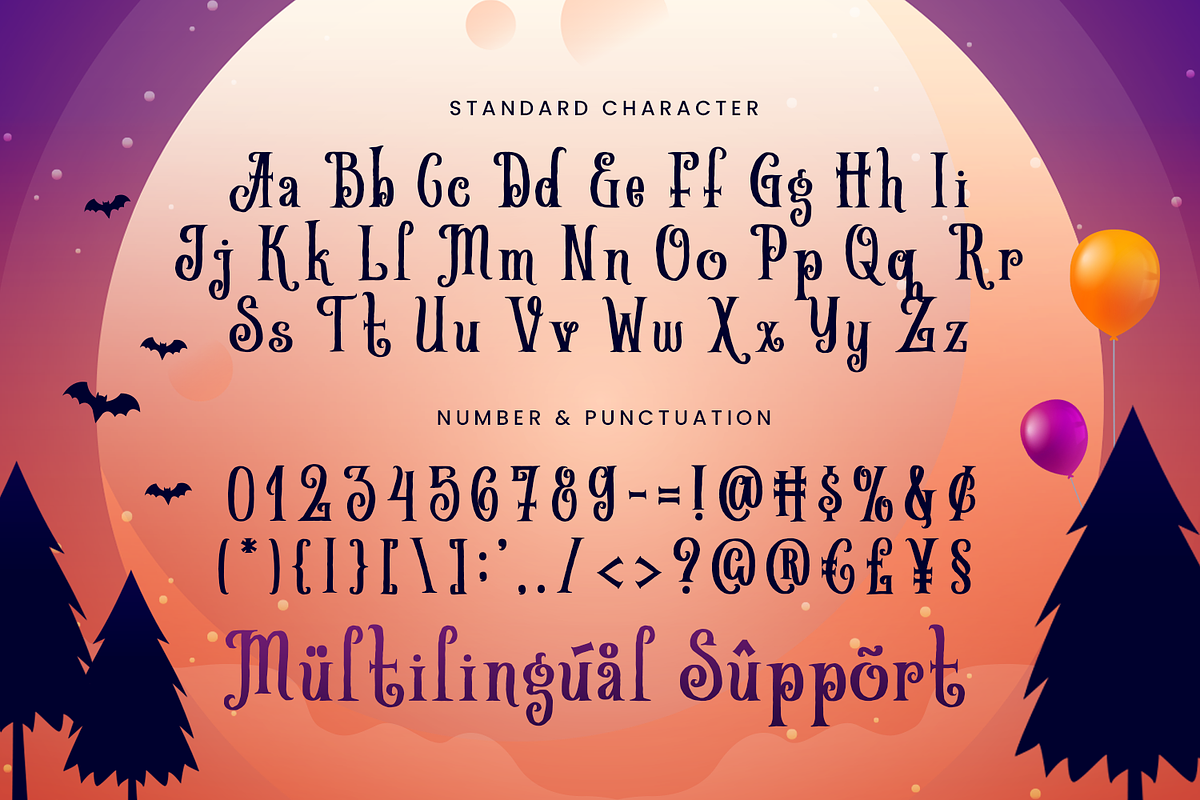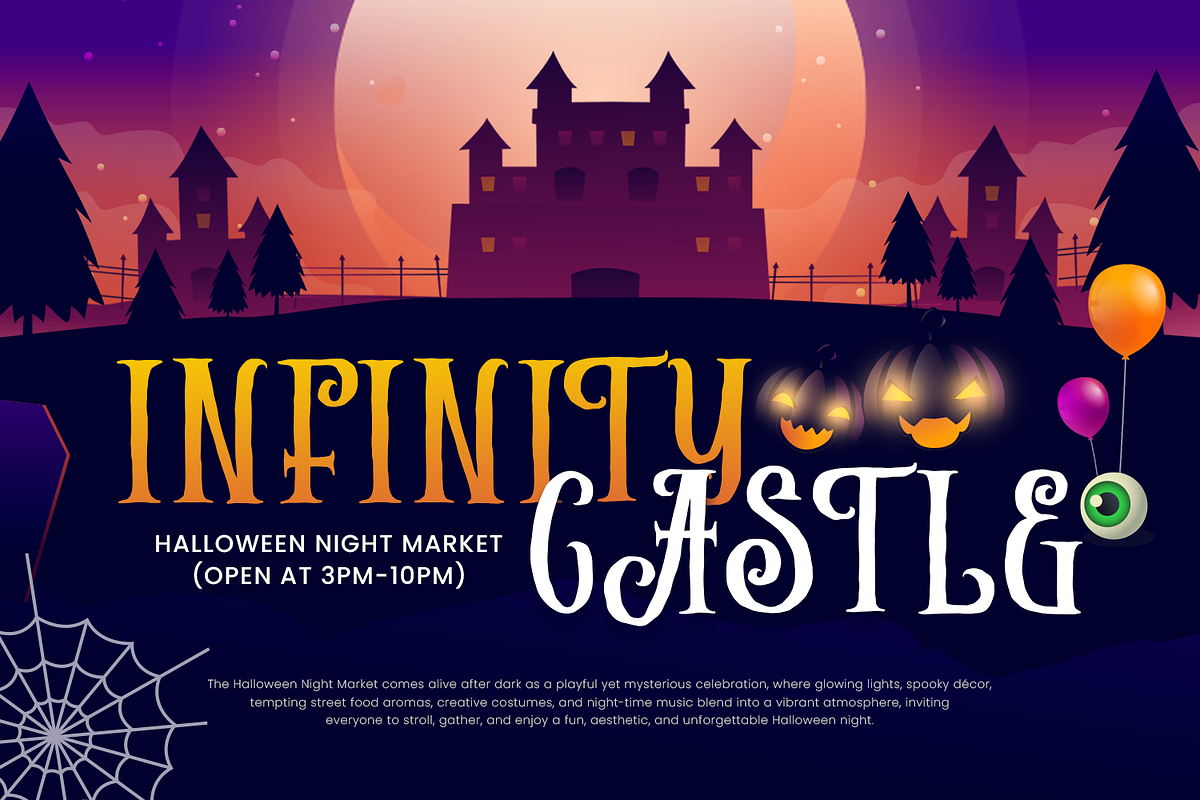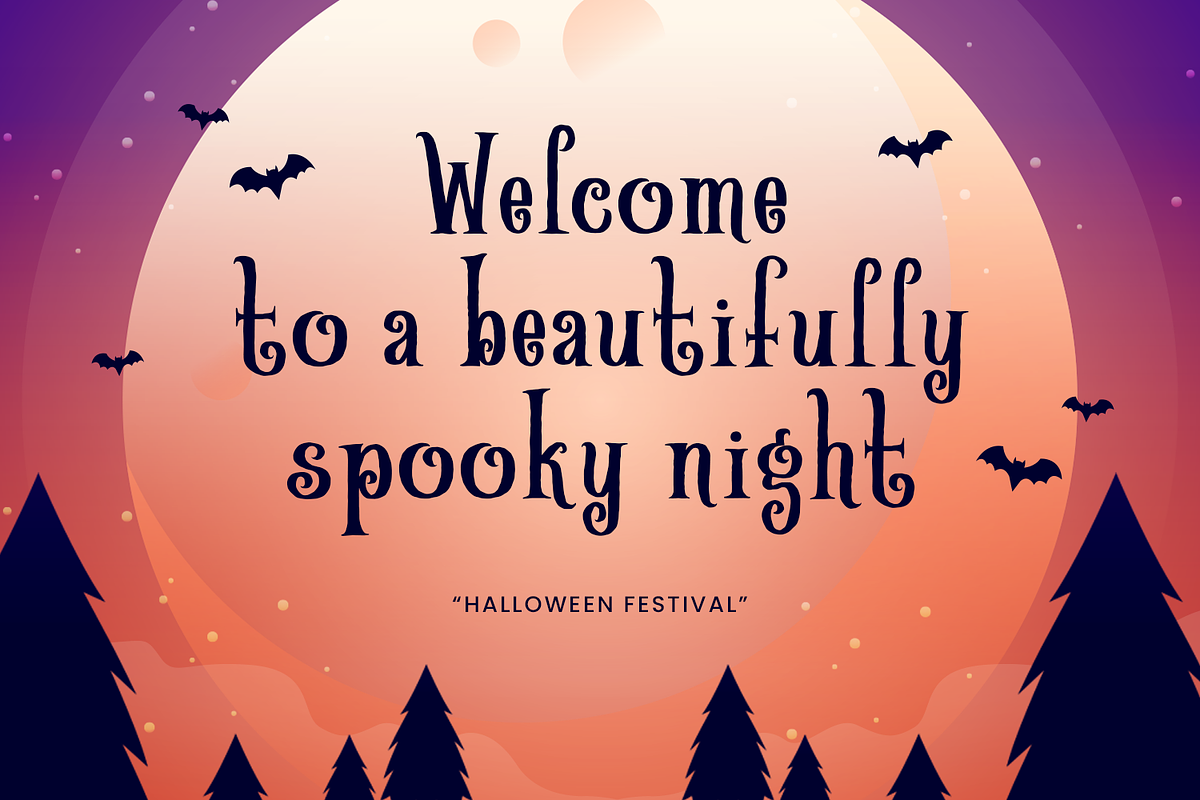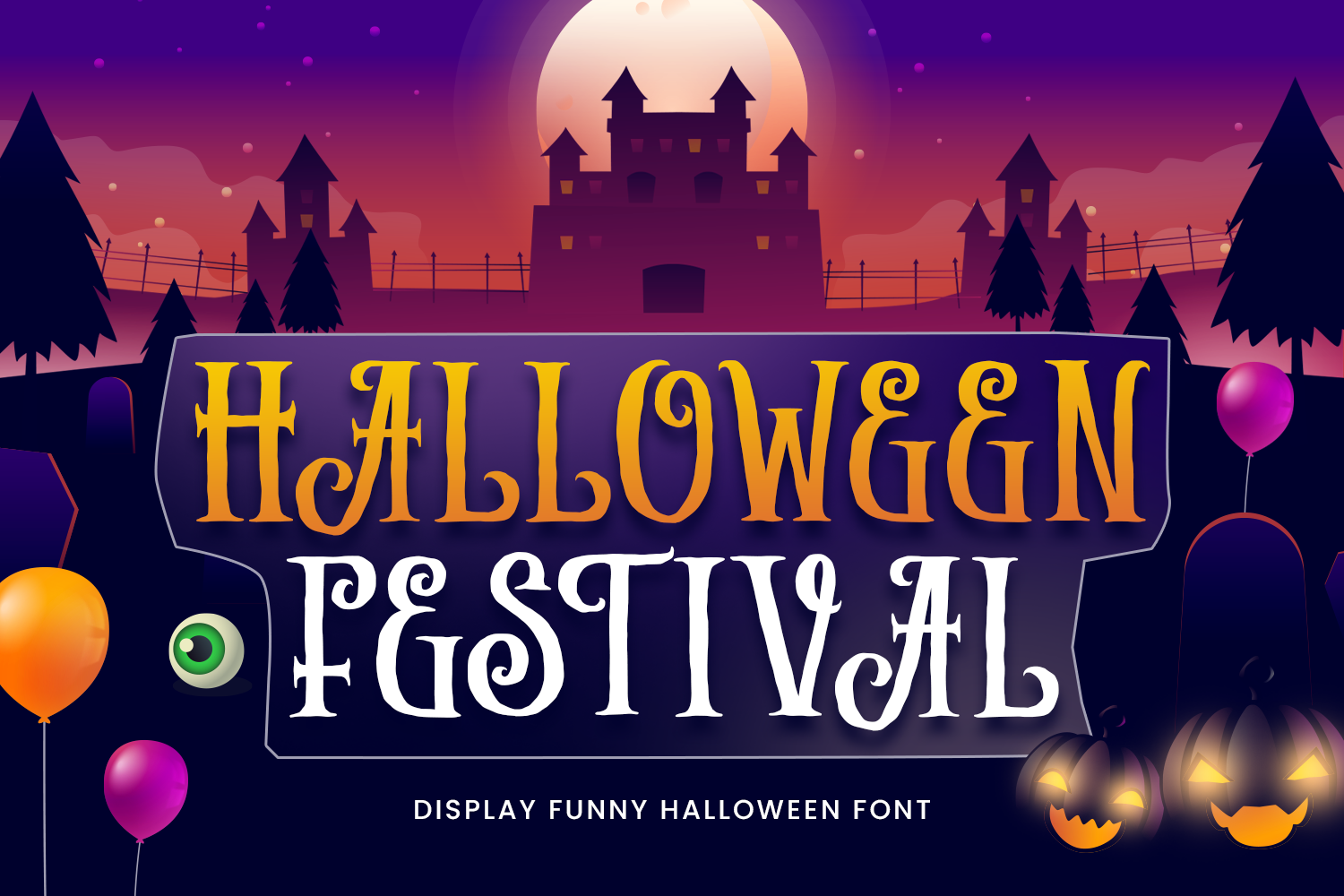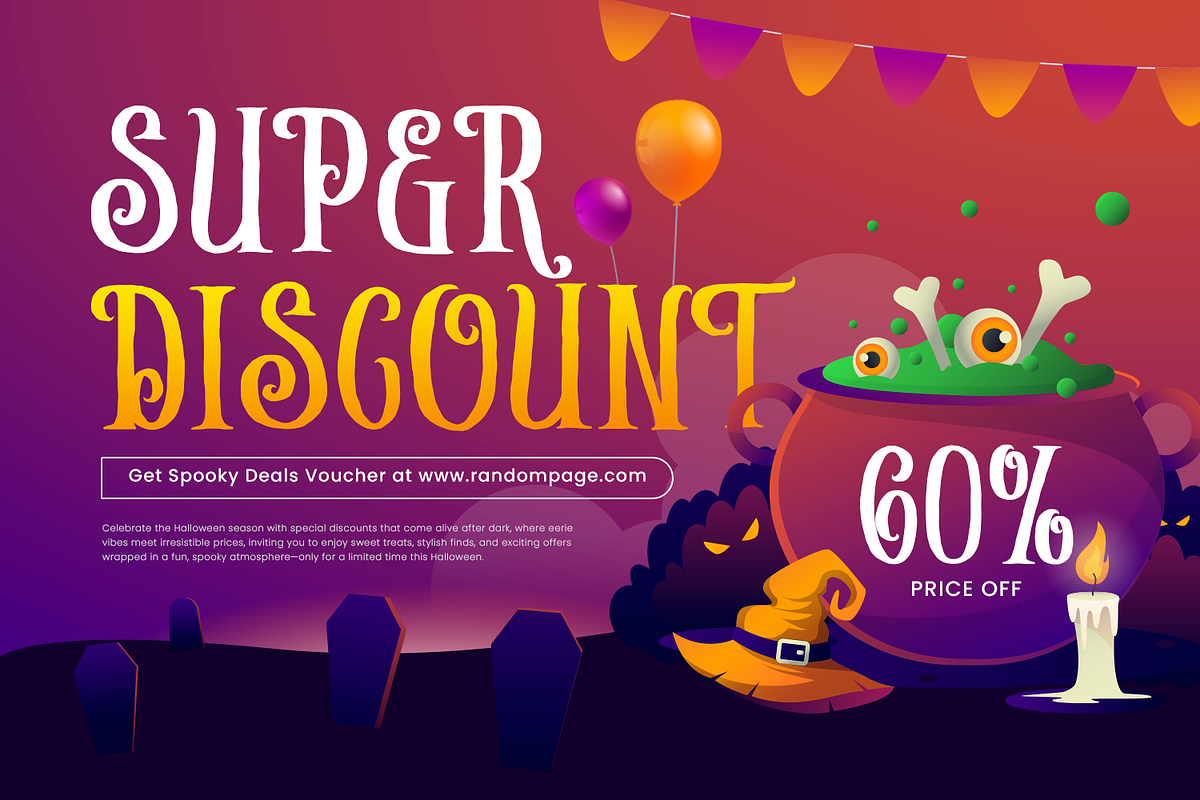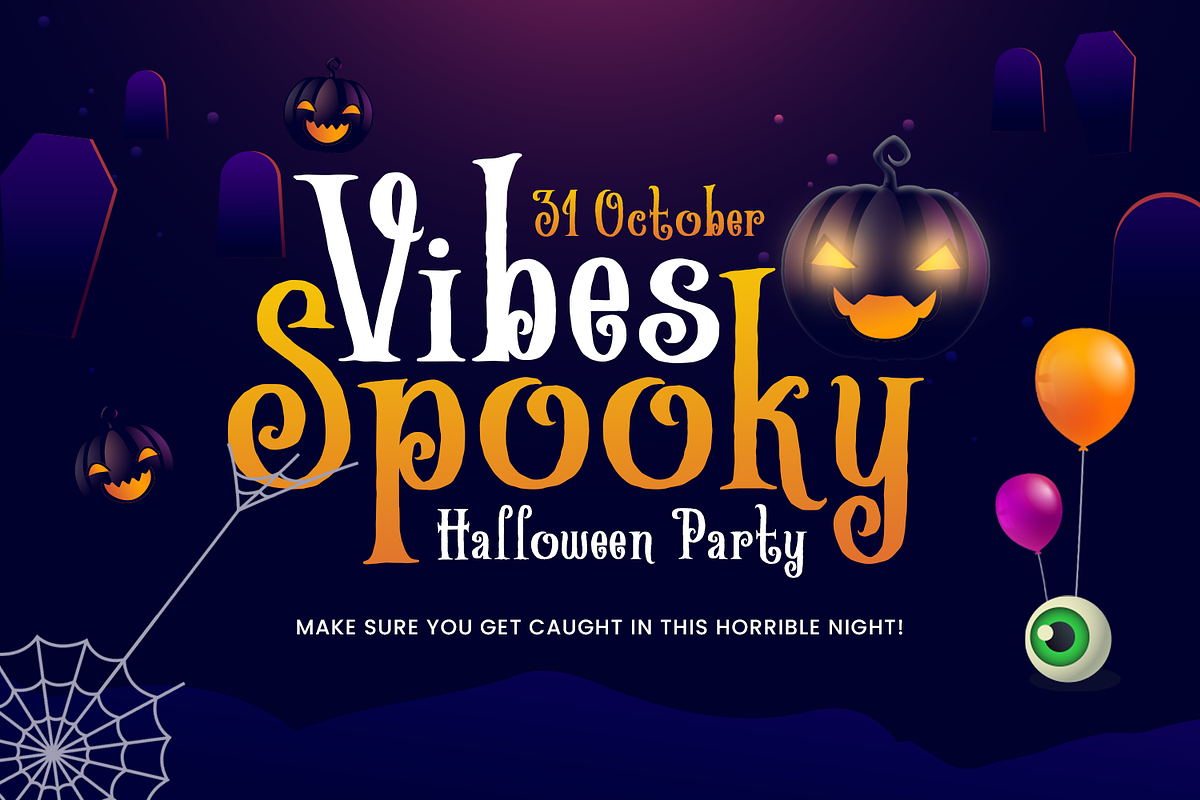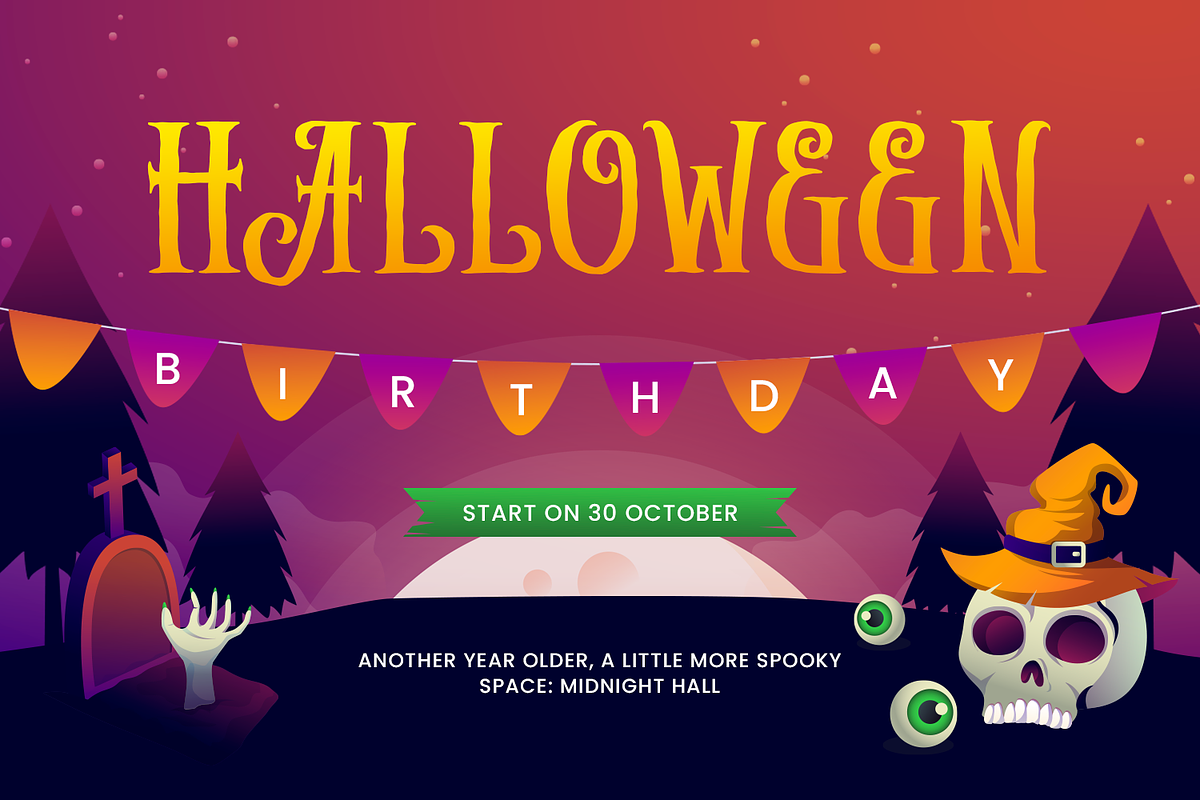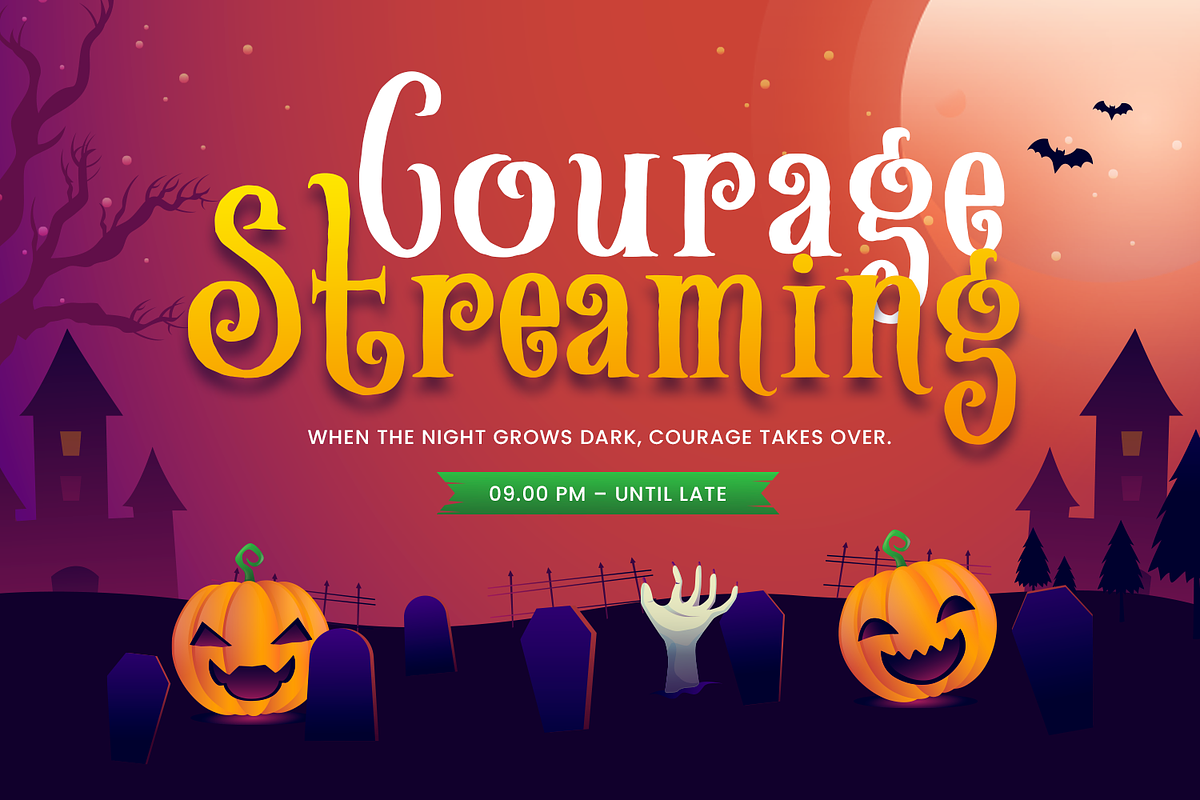
Halloween Festival - Halloween Font
Halloween Festival – Spooky Halloween Font
Halloween Festival is a spooky and festive display font inspired by Halloween celebrations, haunted nights, creepy decorations, and the mysterious atmosphere of October. Featuring bold and distinctive letterforms, this Halloween font creates a dramatic visual impact while maintaining a fun and energetic seasonal personality.
With its creepy yet playful appearance, Halloween Festival brings a strong Halloween character to every word. Its expressive letterforms are designed to capture the atmosphere of haunted houses, pumpkins, eerie shadows, mysterious forests, and exciting Halloween celebrations.
Inspired by Halloween parties, haunted attractions, jack-o'-lanterns, spooky decorations, witches, ghosts, and autumn nights, Halloween Festival combines horror-inspired details with a festive display style. Its bold structure makes it especially effective when typography is used as the main visual element of a design.
Halloween Festival is designed for a wide range of creative projects, including Halloween posters, party invitations, event graphics, haunted house signage, decorations, greeting cards, stickers, labels, packaging, social media graphics, and seasonal promotional artwork.
Whether you're creating a spooky Halloween announcement, haunted event poster, party invitation, or festive autumn design, Halloween Festival adds a memorable and atmospheric identity to your typography.
Key Features of Halloween Festival Font
Spooky Halloween Display Style A bold display font inspired by Halloween celebrations, haunted nights, and creepy seasonal themes.
Creepy & Playful Letterforms Distinctive shapes create a fun horror personality while maintaining strong visual impact.
Festive Halloween Character Perfect for designs inspired by pumpkins, ghosts, witches, haunted houses, and Halloween decorations.
Bold Display Typography Designed to stand out in headlines, titles, posters, event graphics, and large-scale compositions.
Seasonal & Versatile Design Works beautifully for Halloween events, decorations, invitations, crafts, and promotional artwork.
Multilingual Support Includes extended glyph support for a wide range of international design projects.
Halloween Festival display font works beautifully for:
• Halloween Festival Designs • Halloween Party Invitations • Halloween Posters & Flyers • Haunted House Graphics • Spooky Event Promotions • Halloween Decorations • Halloween Signage • Pumpkin & Jack-o'-Lantern Designs • Witch & Ghost Themes • Horror Artwork • Halloween Greeting Cards • Stickers & Labels • Packaging & Product Labels • Cricut & DIY Crafts • SVG Projects • Scrapbooking • Social Media Graphics • Event Branding • Seasonal Advertising • Digital & Print Projects
Why Choose Halloween Festival?
Halloween Festival is a distinctive Halloween display font that combines spooky details with a fun and festive seasonal character. Its bold letterforms make it an excellent choice for designers who want typography that feels creepy, energetic, playful, and memorable.
Whether you're creating Halloween posters, haunted house graphics, party invitations, event signage, decorations, greeting cards, stickers, packaging, or social media graphics, Halloween Festival brings a strong Halloween identity to your designs.